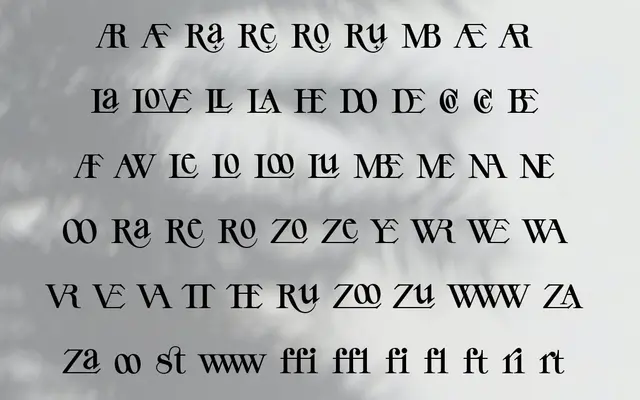
A single-weight display typeface from That That Type, notable for an unusually extensive set of discretionary ligatures and stylistic alternates.
Available in one Display style, YE is built around expressive typographic detail rather than family breadth. Its discretionary ligature set is particularly extensive, covering multi-letter combinations from common pairs like fi and fl through to constructed words such as LOVE, THE and WWW. Stylistic sets and access-all-alternates options for characters including a, e, g and r give designers room to tune the voice of the text.
The foundry classifies it as Display, and the extensive discretionary ligature set, alternate characters and single Display style all point firmly toward a display-oriented typeface rather than a text family.